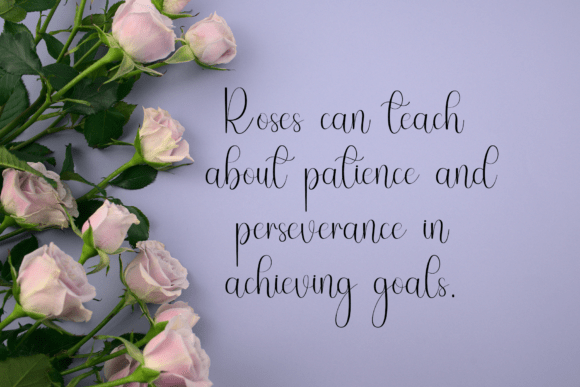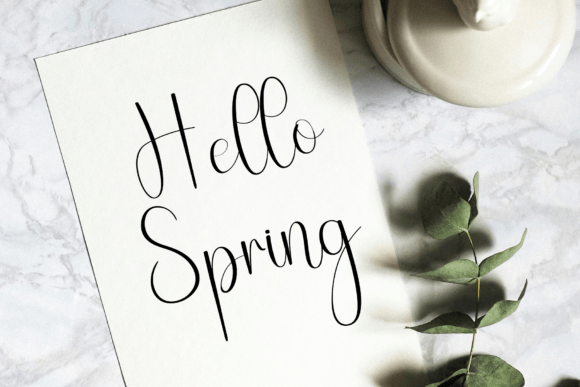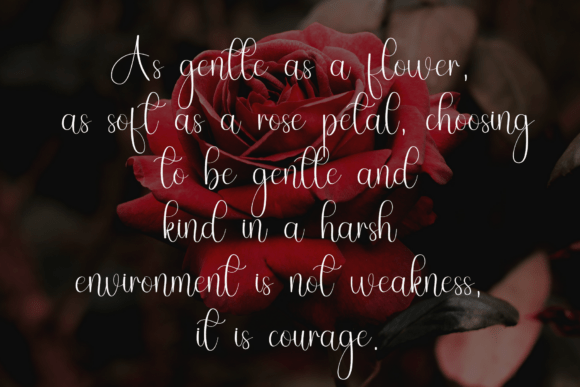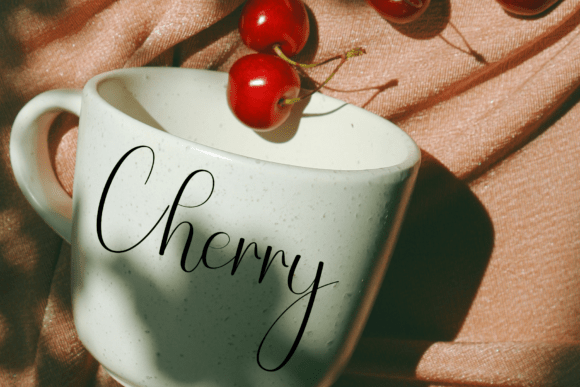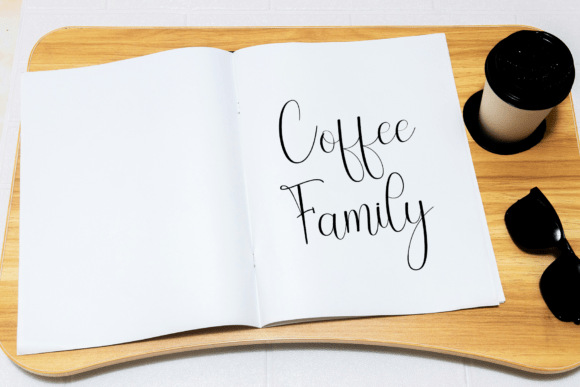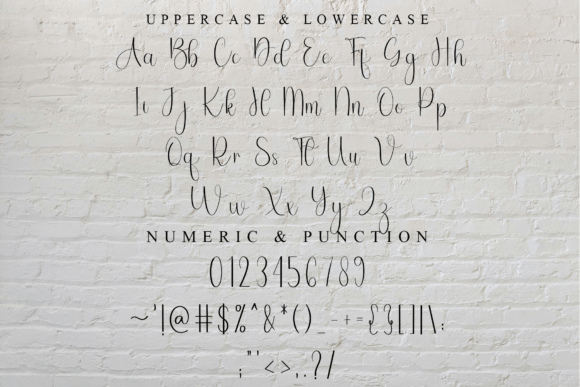
The Magic of Funny Flower Font: A Festive Holiday Delight
Ah, the holiday season is upon us, and with it comes the pressure to create designs that sparkle and shine. I recall a particularly chaotic design session last year, frantically searching for the perfect font to capture the essence of the season. My client wanted a greeting card that exuded warmth, nostalgia, and a dash of whimsy. As I scrolled through font after font, I knew I needed something special. That’s when I stumbled upon Funny Flower Font, and let me tell you, it was love at first sight! 🎄
So, what makes Funny Flower Font so enchanting? Here are the things I adore:
- ✨ Festive and merry vibe that’s perfect for holiday designs
- ✅ Decorative elements and whimsical flair that add a touch of magic to your typography
- 📚 Versatile and suitable for various design projects, from greeting cards to gift tags
Now, no font is perfect, and Funny Flower Font has a few minor quirks:
- 🤔 Some users might find the font a tad too ornate for certain design projects
- ⚠️ Limited use outside of holiday-themed designs, but that’s not necessarily a bad thing!
The Story Behind Funny Flower Font
Legend has it that Funny Flower Font was created by a talented type designer who wanted to capture the essence of the holiday season. Inspired by vintage greeting cards and festive decorations, the designer poured their heart and soul into crafting a font that would bring joy and magic to designs. And so, Funny Flower Font was born! 🎅
| Is Funny Flower Font suitable for non-holiday designs? | While Funny Flower Font is designed with the holiday season in mind, you can experiment with using it for other projects. However, its ornate and festive nature might make it less suitable for certain designs. |